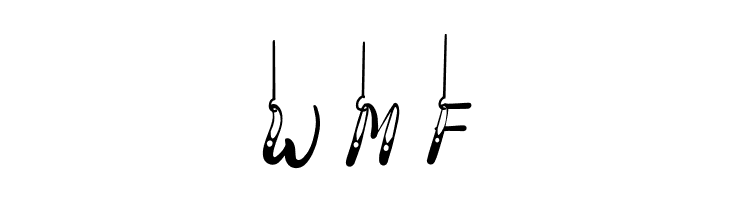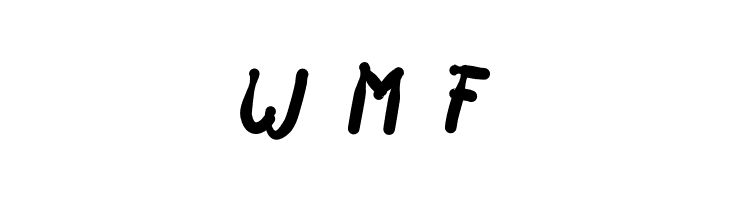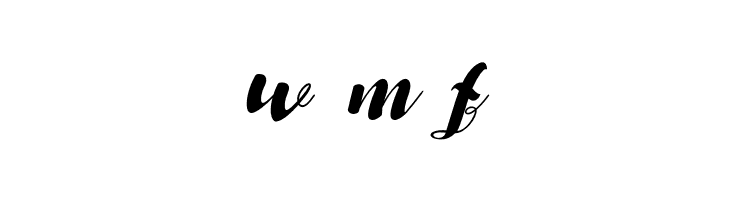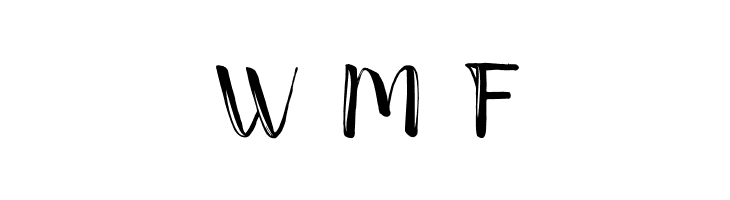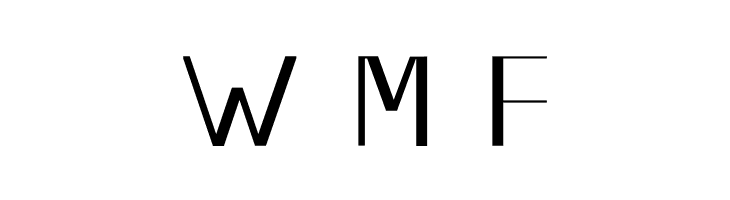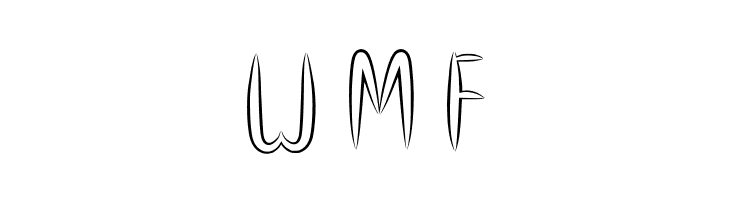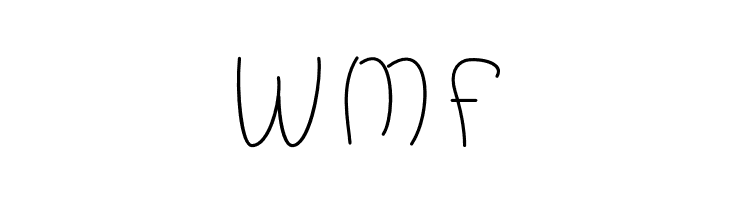
A playful collection of hand-drawn doodle frames with unique designs.
Hand-drawn decorative frames and banners with a distressed texture.
Ornate decorative frames and banners in playful styles.
A playful decorative dingbat font with geometric shapes, banners, arrows, and dividers.
A bold, dynamic handwritten font with thick, uneven strokes.
A playful script font with characters hanging from strings, offering a whimsical and dynamic look.
A decorative font mimicking international passport stamps and seals.
A dingbat font featuring various solid shapes and symbols.
A bold, brush-style font with dynamic, slanted characters.
A playful, heart-themed decorative font with bold, rounded characters.
A bold, playful script font with a handwritten style.
An elegant script font with flowing, interconnected letters and ornate uppercase characters.
A bold, cursive script font with elegant, flowing lines and a strong presence.
A dynamic script font with flowing, interconnected letterforms and varying stroke thickness.
A modern, geometric font with clean lines and slight contrast, ideal for versatile applications.
A bold, dynamic script font with high contrast and elegant curves.
A playful and dynamic outline font with bold, fluid strokes.
A bold, brushstroke font with high contrast and dynamic style.
A bold, handwritten-style font with dynamic and expressive characters.
A playful, cursive script font with elegant, flowing characters.
A playful, handwritten font with irregular strokes and a casual style.
A playful, hand-drawn font with whimsical, flowing lines and charming special characters.
A dynamic and flowing script font with elegant, fluid strokes.
( Fonts by SSI.Scraps - Syukur Setiyadi - Personal-use only. For commercial use please contact owner. )
A bold, expressive script font with elegant, flowing letterforms.
( Fonts by SSI.Scraps - Syukur Setiyadi - Personal-use only. For commercial use please contact owner. )
A dynamic, expressive handwritten font with fluid strokes and artistic flair.
( Fonts by SSI.Scraps - Syukur Setiyadi - Personal-use only. For commercial use please contact owner. )
A bold, expressive script font with a hand-drawn, dynamic style.
( Fonts by SSI.Scraps - Syukur Setiyadi - Personal-use only. For commercial use please contact owner. )
A playful, handwritten font with exaggerated curves and a whimsical style.
( Fonts by SSI.Scraps - Syukur Setiyadi - Personal-use only. For commercial use please contact owner. )
A cursive, flowing font with elegant, elongated strokes.
( Fonts by SSI.Scraps - Syukur Setiyadi - Personal-use only. For commercial use please contact owner. )
A whimsical, decorative script font with star embellishments.
( Fonts by SSI.Scraps - Syukur Setiyadi - Personal-use only. For commercial use please contact owner. )
A playful, dynamic font blending script and sans-serif styles with a handwritten feel.
( Fonts by SSI.Scraps - Syukur Setiyadi - Personal-use only. For commercial use please contact owner. )
A playful, bold handwritten font with smooth, rounded edges and consistent stroke width.
( Fonts by SSI.Scraps - Syukur Setiyadi - Personal-use only. For commercial use please contact owner. )
A classic, cursive script font with a handwritten, signature-like style.
( Fonts by SSI.Scraps - Syukur Setiyadi - Personal-use only. For commercial use please contact owner. )
A modern, shadowed font with geometric outlines and a three-dimensional effect.
An elegant and flowing script font with ornate uppercase and smooth lowercase letters.
A playful, bold font with rounded, thick strokes and a hand-drawn feel.